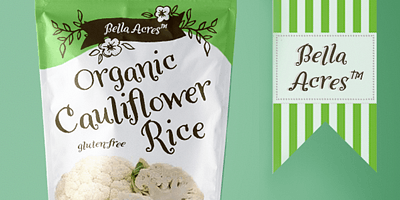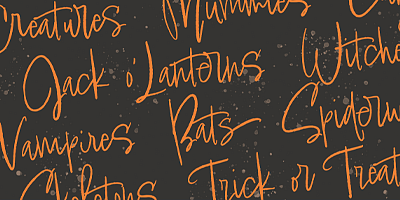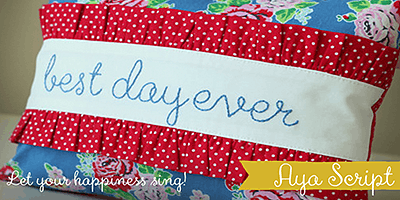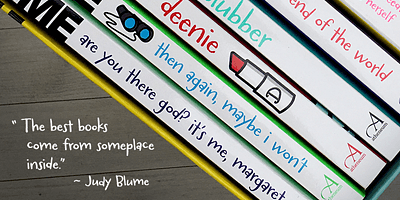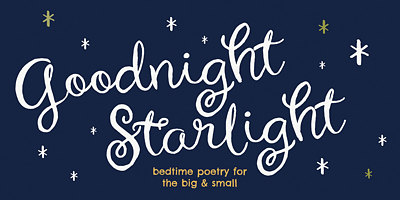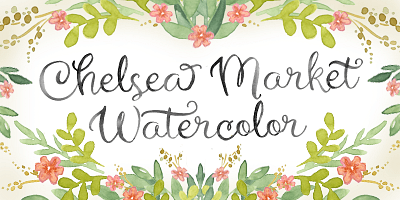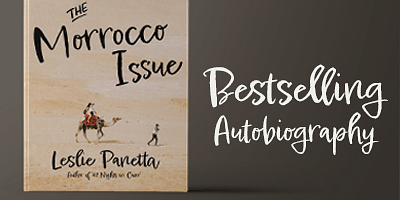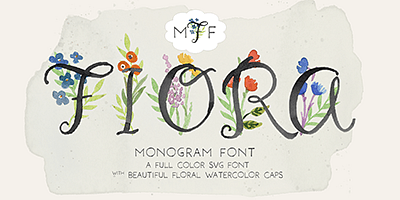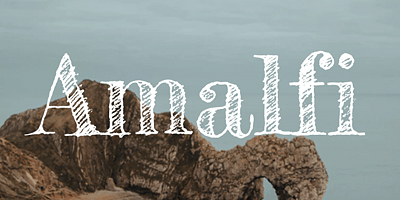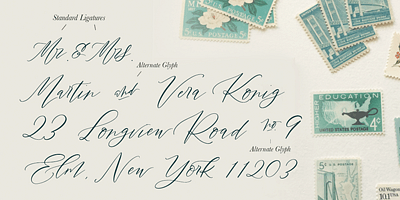
Amoretta is delightful for print (identity, stationery, book design, packaging) or online (eBooks, games, apps, websites). Easy to
Audrielle is a casually sophisticated signature style script. Hand drawn with lots of personality and Opentype features. It’s a strong choice for branding, fashion and lifestyle editorials.
Aya Script is a friendly OpenType font hand-calligraphed in pen & ink with a healthy collection of alternates & ligatures. She’s easy to
Bookeyed, a hand-drawn serif family created by dip pen on paper. Wonderful for vintage & artisan aesthetics. Includes alt glyphs & stylistic ligatures w/ OpenType features. As the name suggests, it’s a great choice for book design.
Drawn from one the artist’s most commonly utilized lettering styles, its quiet unfussy nature lends itself well to almost everything. Carrotflower looks amazing on screen and is a real pro at online games & apps. Features: Standard & stylistic alternate glyphs.
Chelsea Market Script is a handpainted cursive font with sweet ligatures and delightful alternate characters. It's perfect for logos, headlines and giftware products.
Cheerful & exuberant, this handpainted watercolor script bounces along the page and screen. Soft color variation in the line work make this font unique and mimic organic lettering. Features: Standard & discretionary ligatures, alternate glyphs, fractions and bonus glyphs.
Fiora Monograms is a sweet handpainted monogram font in full color. The uppercase contains decorative floral caps designed for monograms and drop caps. The lowercase is composed of All CAPS watercolor characters with full punctuation and European language support allowing the font to be used in other text applications. Fiora is delightful for stationery & products. Isolated flowers icons are accessible as alternate numeral glyphs or through glyphs chart. View posters for monogramming ideas.
Fredericka the Greatest was hand-drawn in pencil loosely referencing the typeface Modern No.20. This Pro version is expanded and enhanced with more characters and finer detail.
Hey Eloise is a single-case font created by hand with brush & ink. Available in solid gouache or watercolor style variations. Easy to personalize, you may switch between character sets by turning your caps lock on & off or selecting individual glyphs through Opentype features. Features: Standard & discretionary ligatures, alternate glyphs, fractions and bonus glyphs & decorative catch words.
La Bohemienne is a graceful modern calligraphy script. It’s Opentype features replicate the personality of handcrafted penmanship. With clean elegant lines, it’s a natural choice for weddings and sophisticated events.
Lindsey Signature is a casual script font replicating the spirit of natural handwriting.Opentype features include ligatures and alternate glyphs adding spontaneity & liveliness. Lindsey Signature a stylish choice for editorials, advertising, social mediacampaigns, lifestyle & fashion collections. Features: Standard & discretionary ligatures and alternate glyphs. Additional bonus glyphs accessible through the glyphs panel.
Madelinette is a calligraphy script based on the Palmer Method designed with classic roman fonts as a harmonious family enhanced with Opentype magic. Think handcrafted beauty and tradition. An impeccable choice for wine labels, romantic themes and stationery.
Moonblossom is a handpainted brush ALL CAPS font. A simple boxy sans serif, Moonblossom is a wonderful mate with Chelsea Market Script. It’s perfect choice for posters, illustrations & book titles. Features: Case selection switches the character sets. Employ Uppercase for titling, Lowercase for text. Opentype ligatures set in uppercase. Additional bonus glyphs accessible through the glyphs panel.
Romana was inspired by carved Roman inscriptions. It was hand drawn with a dip pen and ink onto paper. The font maintains a handcrafted feel with irregularities and quirks. It’s simplicity makes it a stable choice to pair with more decorative calligraphy fonts with a classic flair. Features: Standard & discretionary ligatures, fractions, ordinals and bonus glyphs. The uppercase is designed for titling and features decorative ligatures, the lowercase for body text.
Salt House is a hand-drawn ALL CAPS font. It's simple nature stands well alone or as a foil to more expressive scripts. Salt House was designed to compliment modern calligraphy fonts and is solid match for illustrations. Features: Case selection switches the character sets. Additional bonus glyphs accessible through the glyphs panel.
Hand-calligraphed San Rafael is a flirty non-script option, it includes alternate glyphs & ligatures accessible in OpenType. Perfect for packaging, logotypes, book titles, gifts & stationery goods.
Seasoned Hostess is based on custom lettering designed for a restaurant signage system. A simple easy to
Silverstein is a modern simple ALL caps font. His characters reference architectural lettering, drawing from the designer's earlier days of drafting floorplans and presentation drawings into the twilight hours.